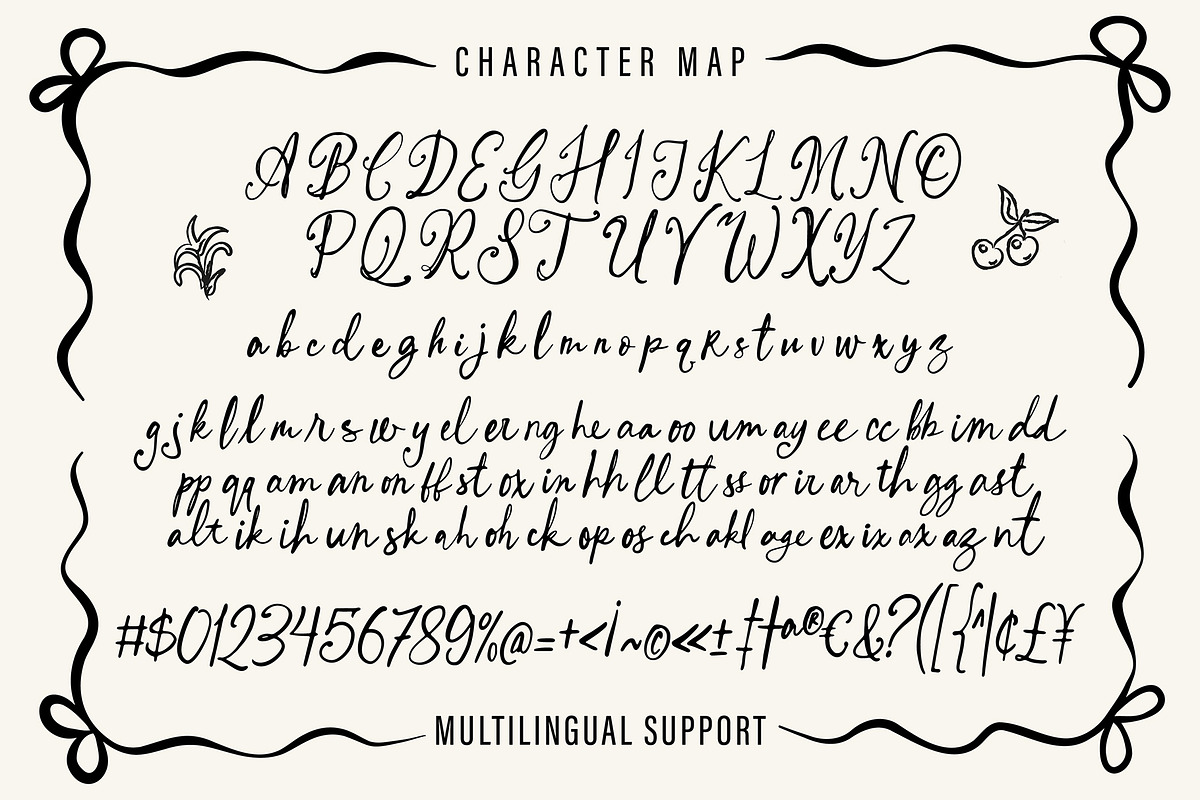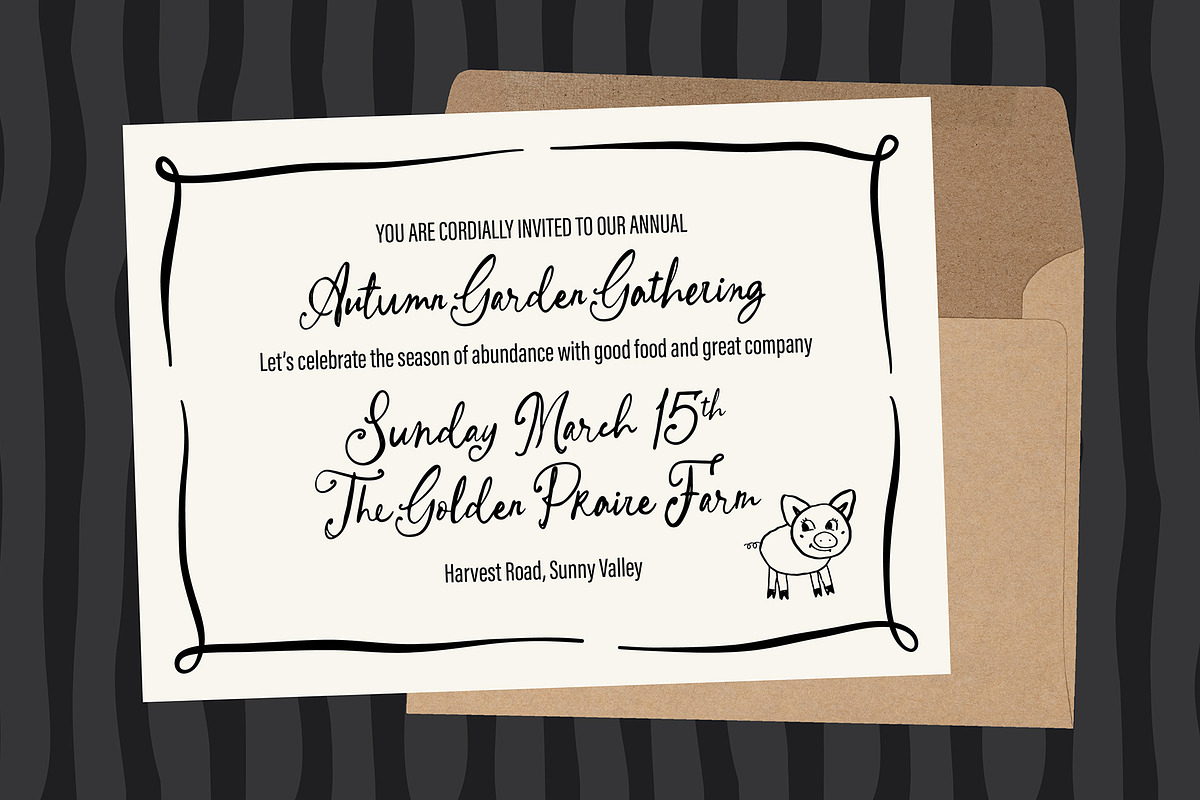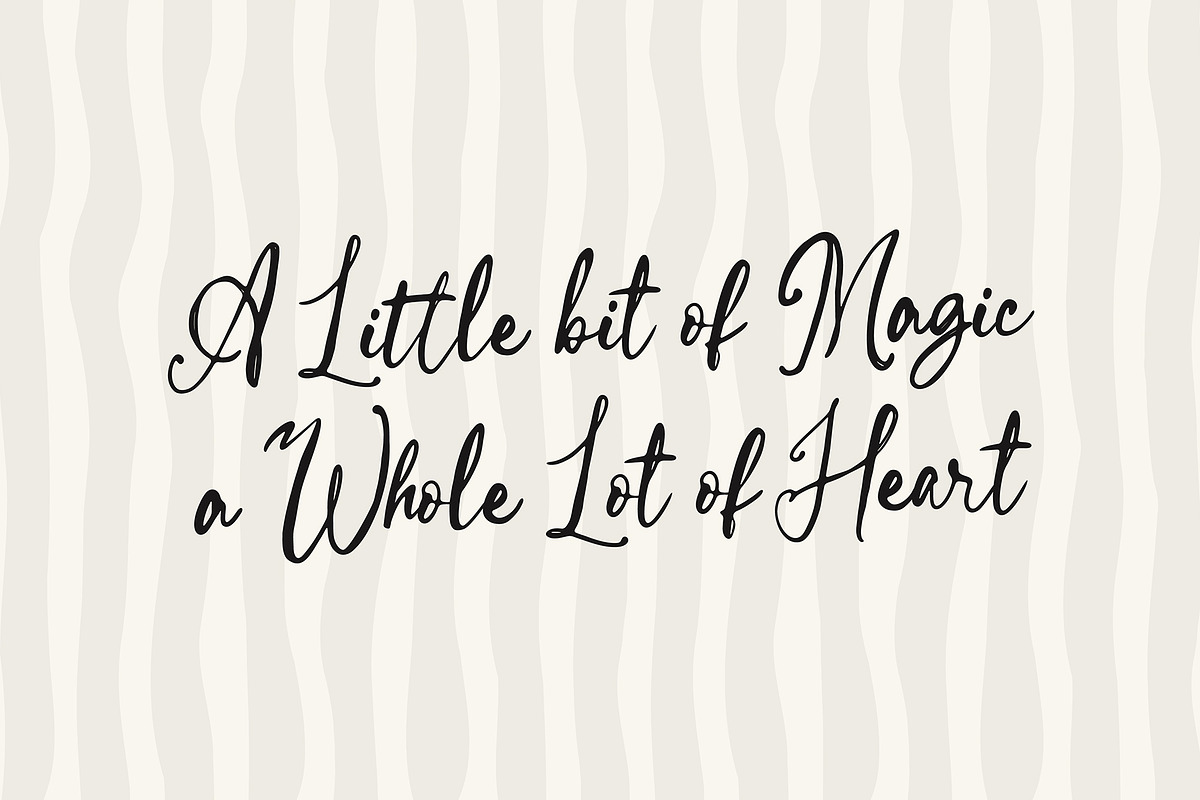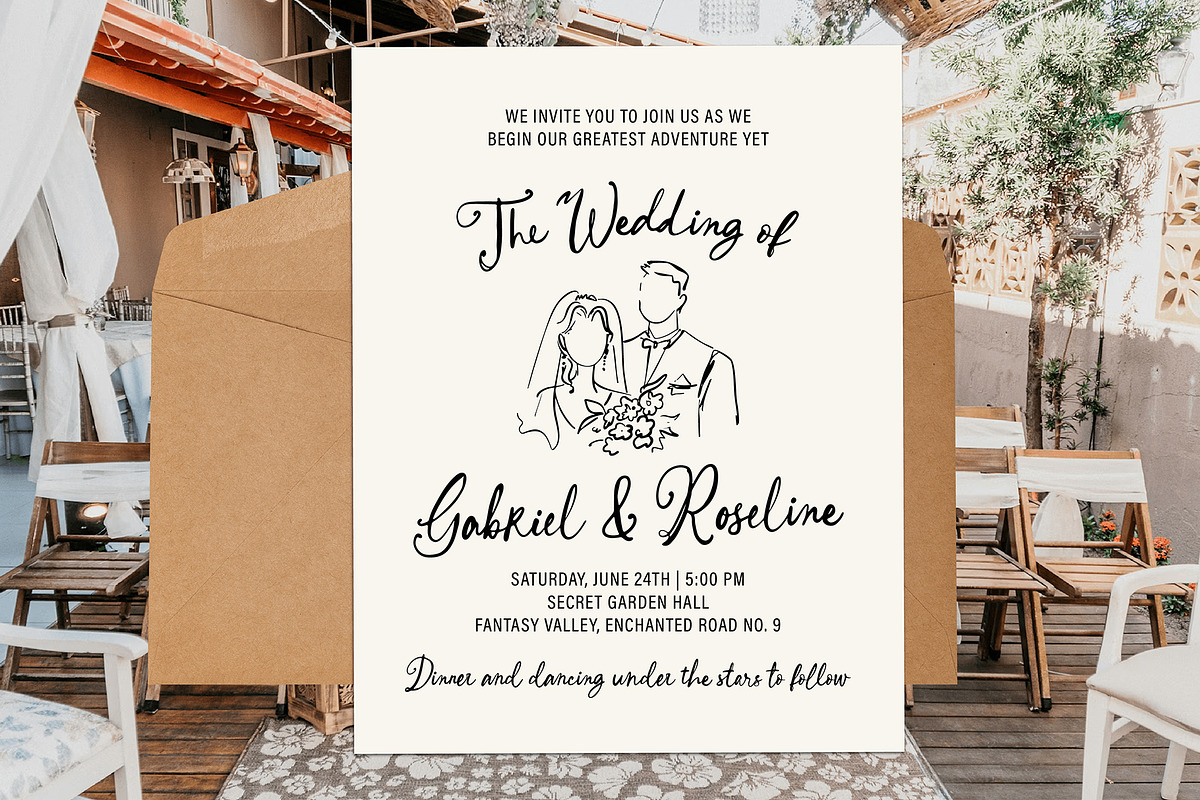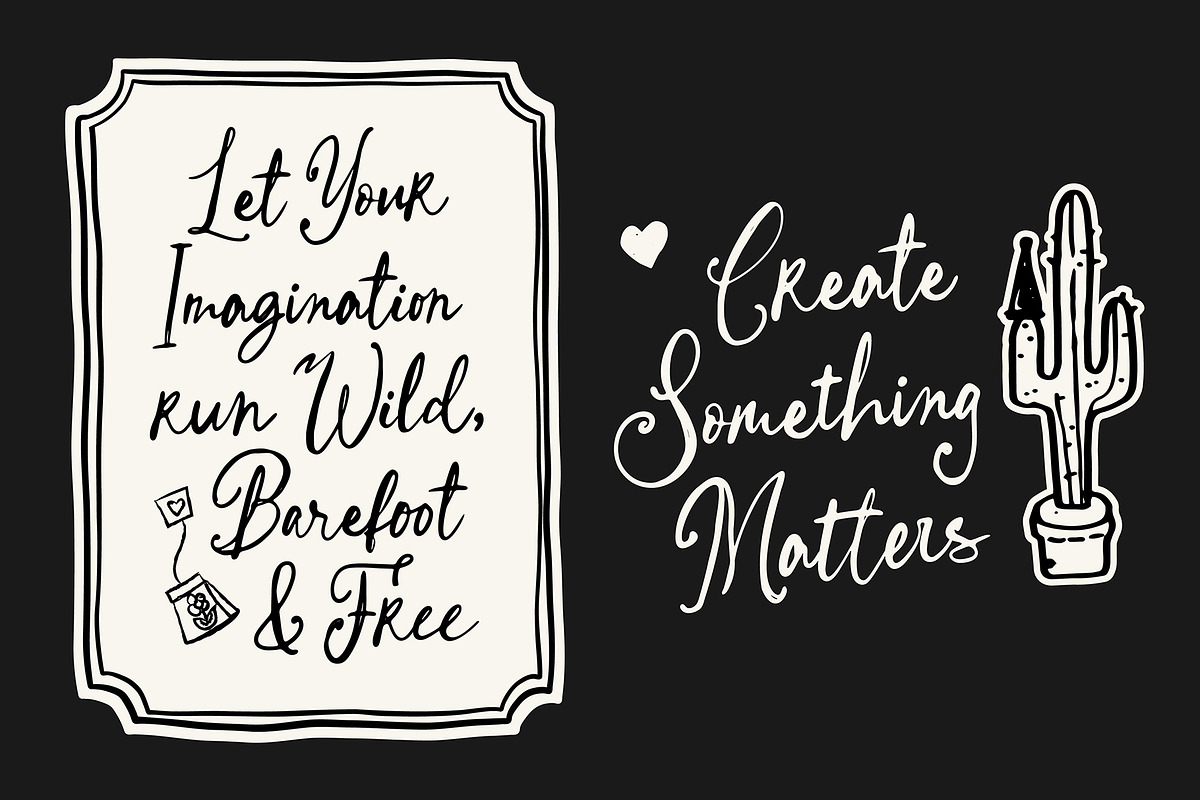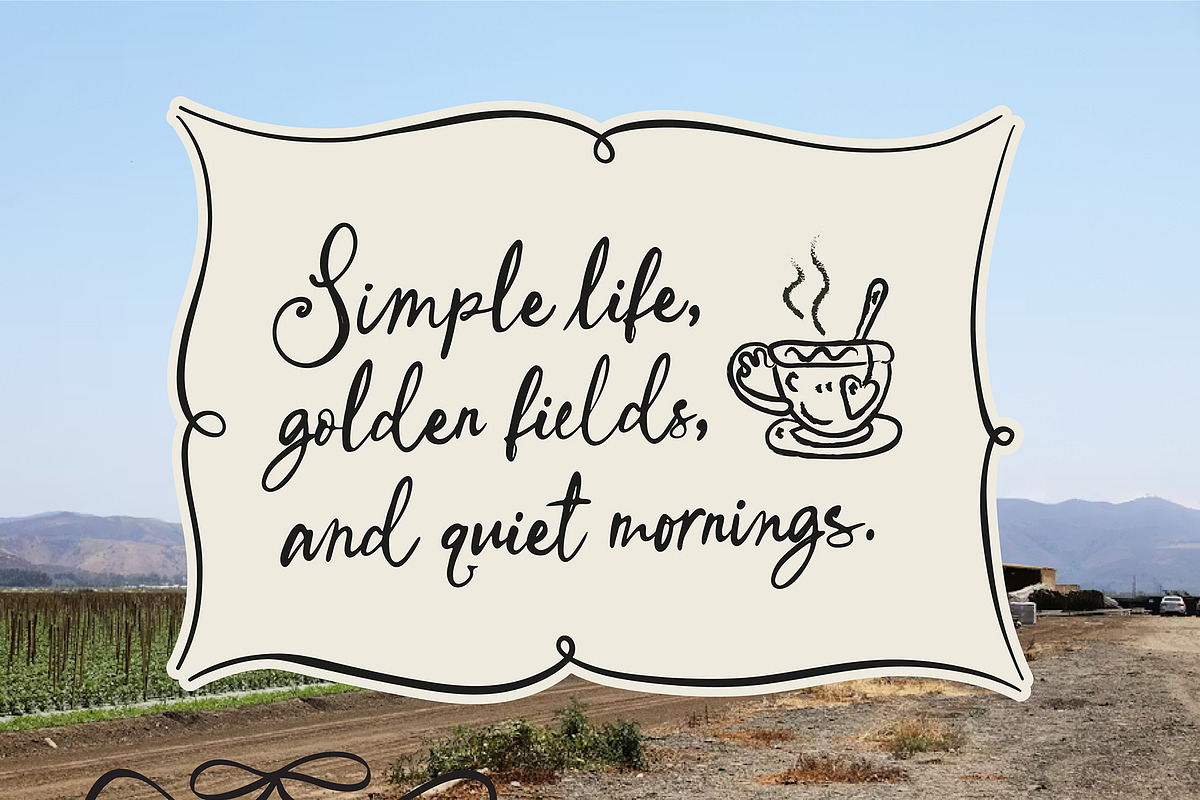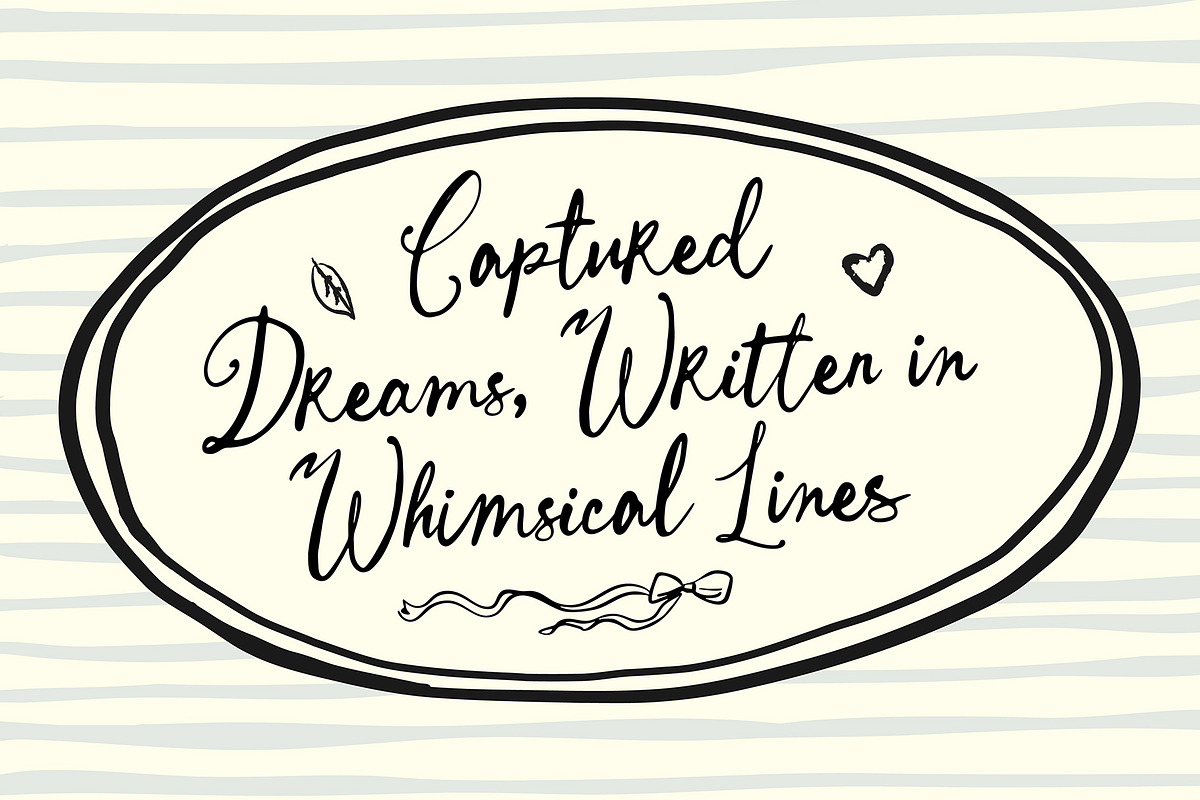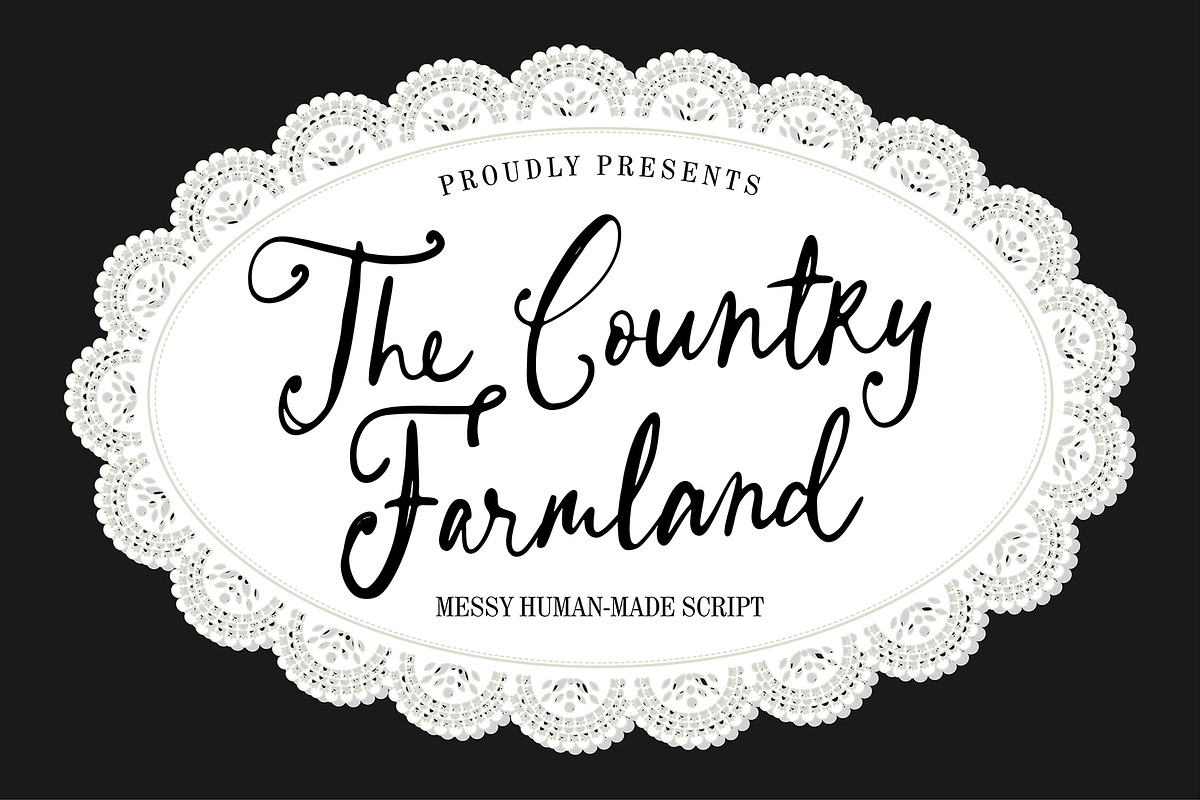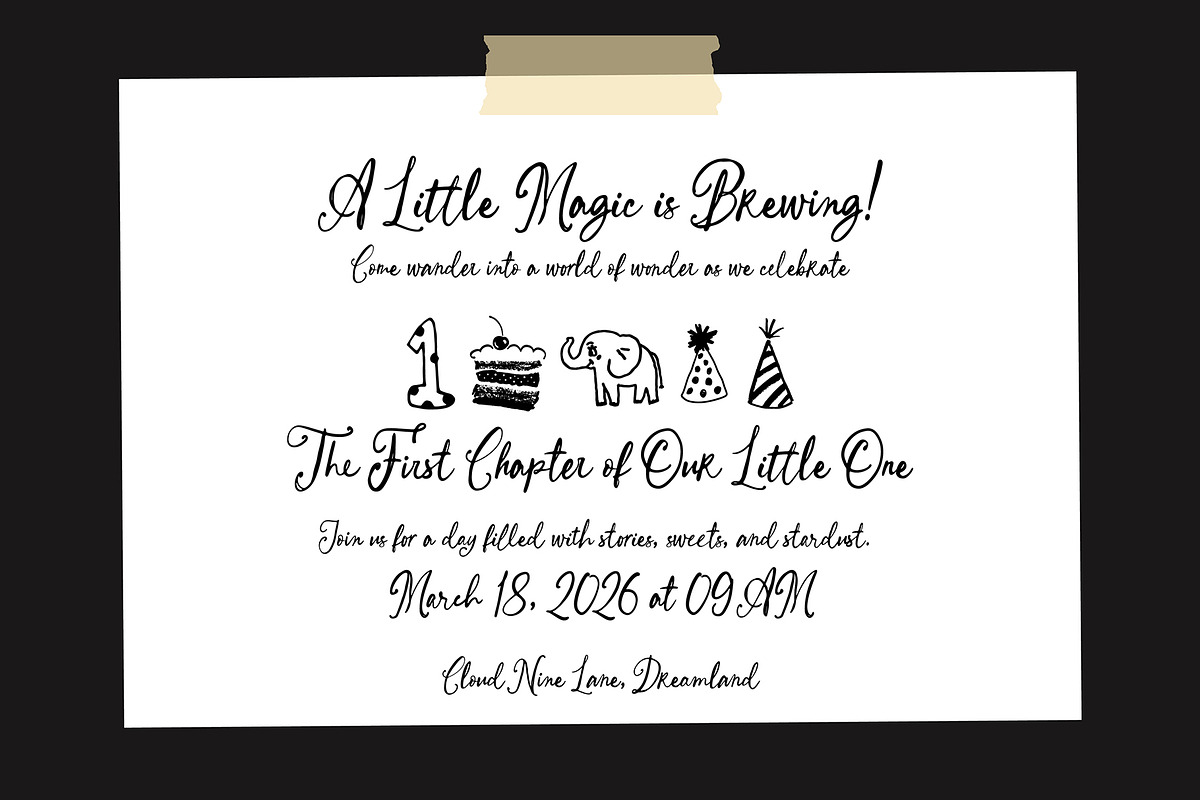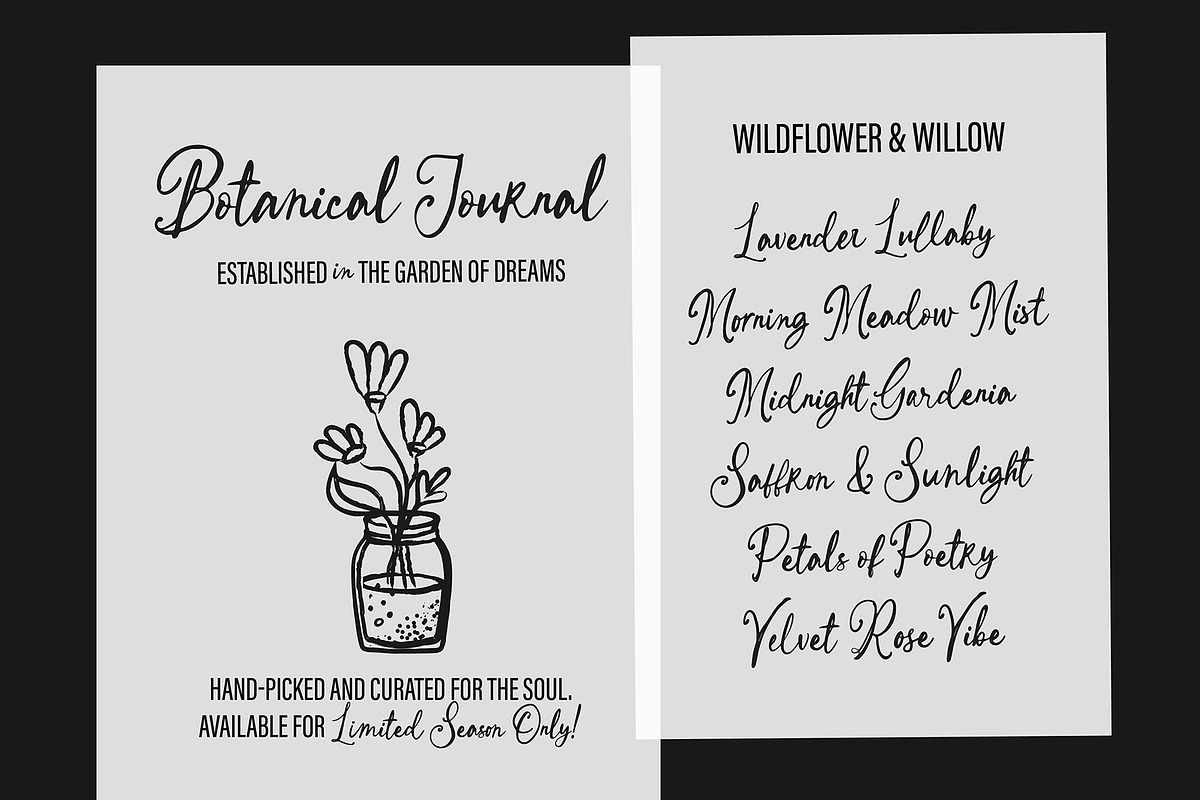
Country Farmland Script
Country Farmland
A Messy Human-Made Script
Country Farmland is a warm, free-spirited script inspired by slow mornings, open fields, and handwritten notes pinned to a wooden kitchen wall. It carries the imperfect beauty of real pen strokes — slightly messy, naturally flowing, and full of character.
Each letter is drawn with a relaxed rhythm, giving your words an organic movement that feels personal and heartfelt. The uppercase forms bring a rustic charm, while the lowercase set flows effortlessly with playful alternates and natural connections.
This font is perfect for farmhouse branding, rustic logos, wedding stationery, packaging, quotes, craft products, social media graphics, and anything that needs an authentic hand-lettered touch.
Country Farmland embraces imperfection — and that’s exactly where its beauty lives.
Uppercase & lowercase letters
Numerals & punctuation
Stylistic alternates
Perfect For: Farmhouse branding, rustic packaging, handmade product labels, wedding invitations, quote designs, craft businesses, organic products, boutique logos, social media content, and lifestyle merchandise.